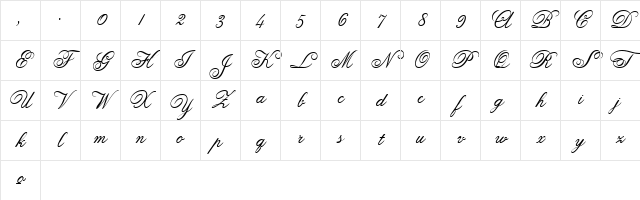
Anglia Script Standard Regular
Design Context for Anglia Script Standard
Anglia Script Standard flows with the natural rhythm of handwritten lettering, making it ideal for designs that call for warmth and personal expression.
Font Pairing: Combine Anglia Script Standard with a simple geometric sans for maximum contrast - the tension between flowing curves and clean structure is a classic typographic pairing.
Pro Tip: Use Anglia Script Standard for short runs of text - names, titles, or taglines. Extended body copy in script faces tires the eye quickly.